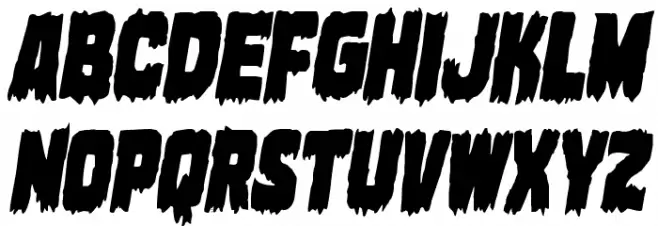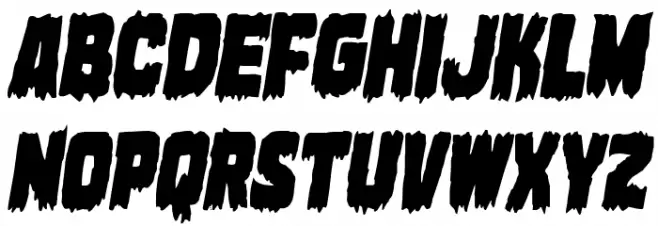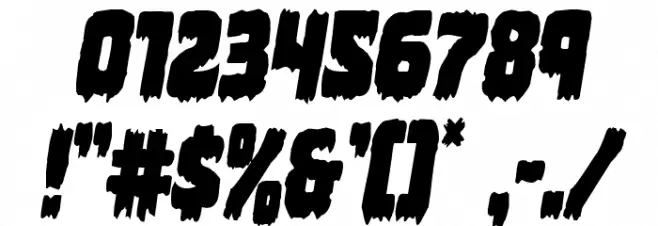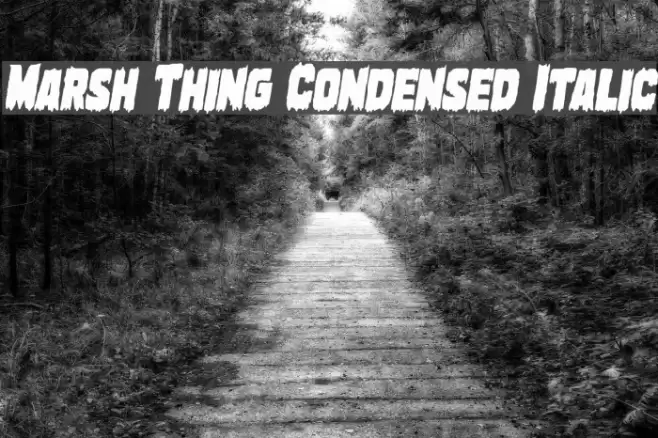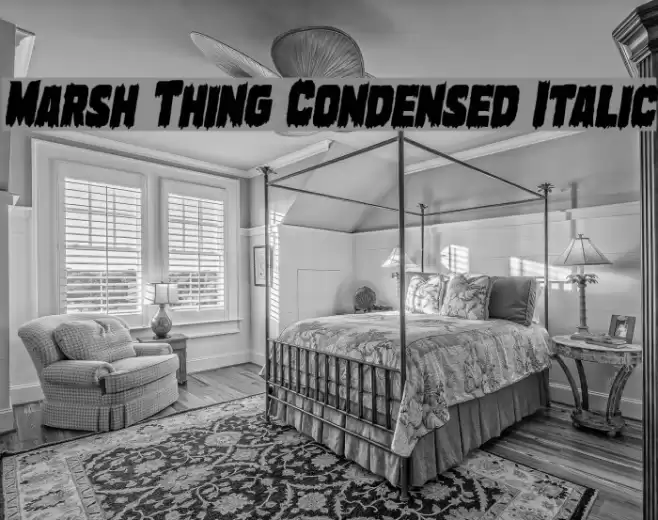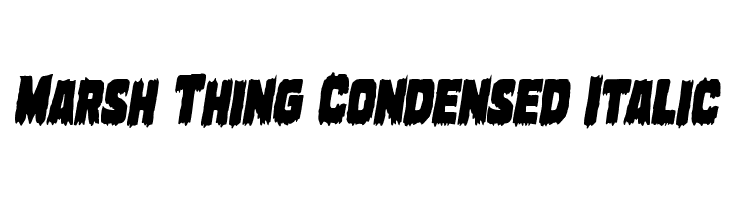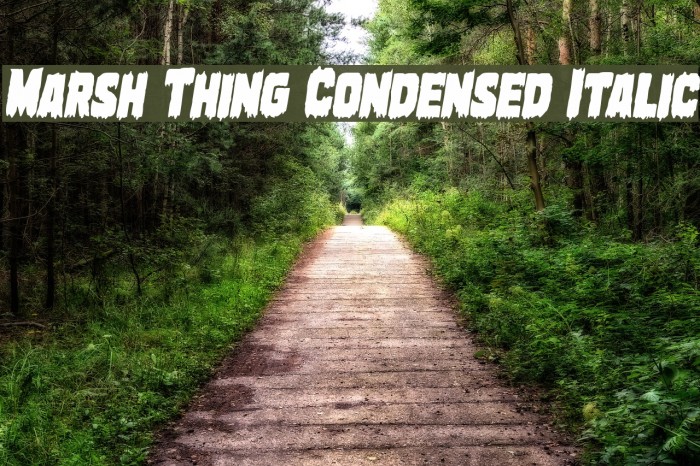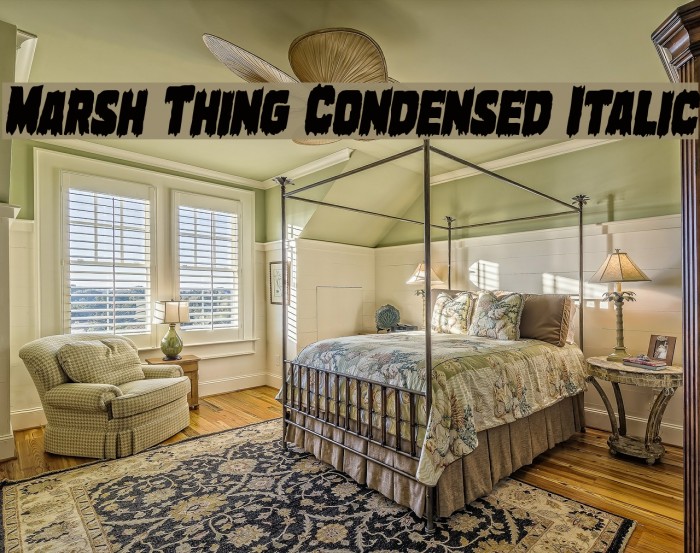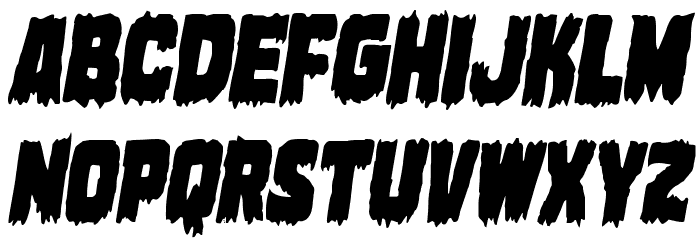
Marsh Thing Condensed Italic
This font features a bold and condensed style with a distinctive italic slant, giving it a dynamic and energetic appearance. The characters are heavily stylized with rough, jagged edges, reminiscent of a horror or thriller theme. The uppercase and lowercase letters maintain a consistent weight and width, contributing to a cohesive look. The numbers and special characters follow the same design principles, ensuring uniformity across all glyphs. This font's unique style makes it stand out, perfect for projects that require a dramatic and impactful visual presence.
A bold, condensed, and italic font with jagged edges, ideal for dramatic themes.
- Proposed Projects: Ideal for horror movie posters, Halloween event flyers, or any project needing a bold, edgy look.
- Width: Condensed
- Character Spacing: Tight
- Overall Style: Decorative
- Use Case: Headlines, Posters, Logos